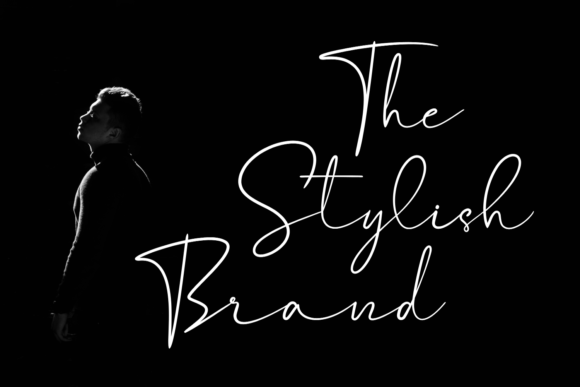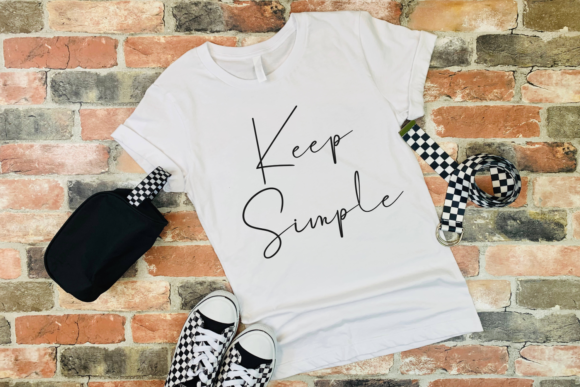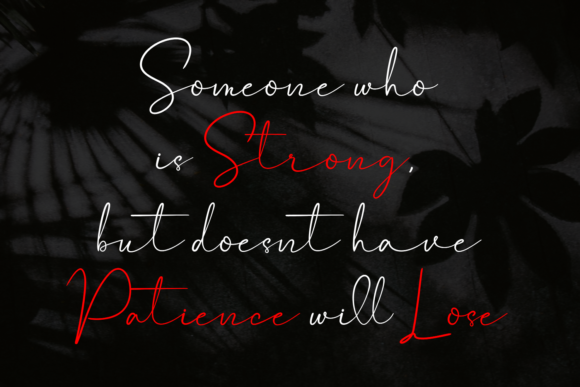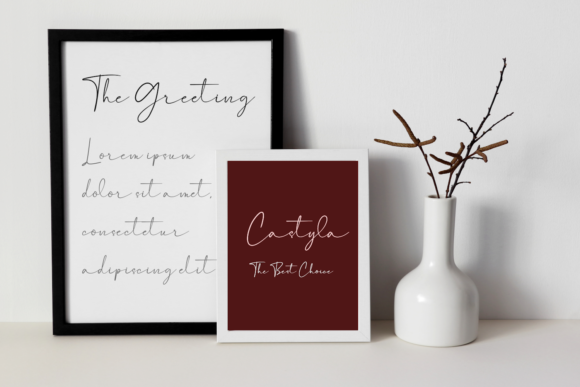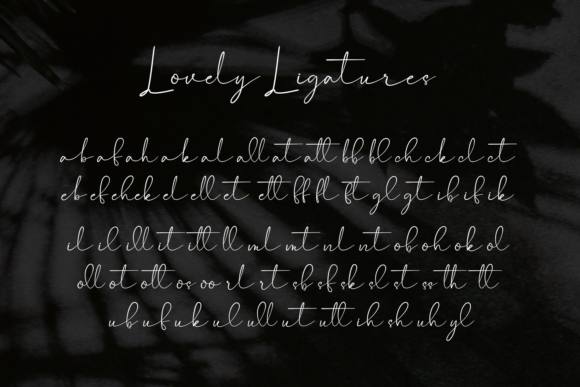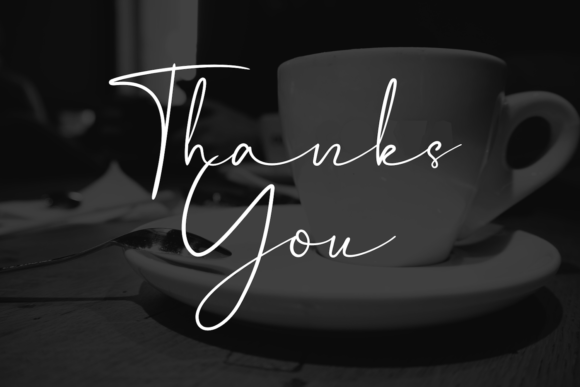
Castyla Font
Castyla is a magical script font carefully created with a touch of elegance. It features an incredibly classic style, while still keeping a friendly feel. Castyla is the perfect font for making original and outstanding designs.